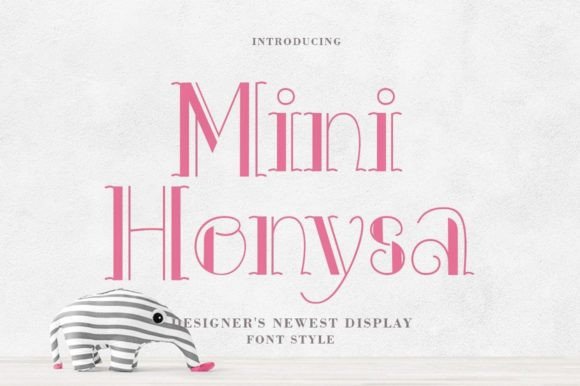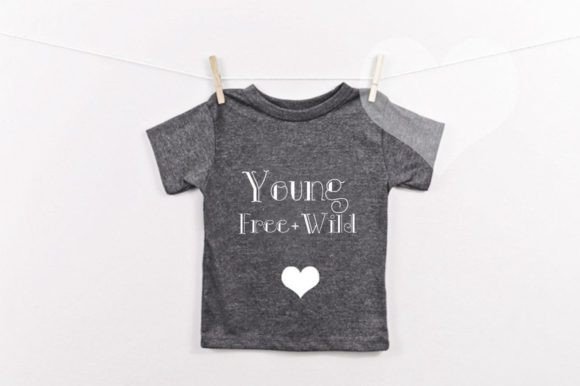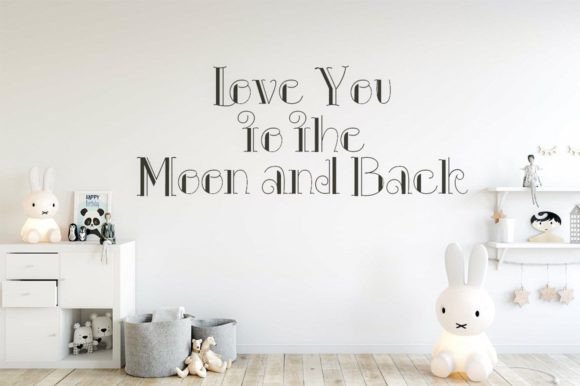
About Mini Honysa Font
Mini Honysa sounds like a modern and versatile font, suitable for a wide range of design applications. Its adaptability makes it a great choice for branding, invitations, stationery, wedding designs, social media posts, advertisements, product packaging, product designs, labels, photography, watermarks, special events, and more.
Fonts with a modern look often bring a contemporary and fresh aesthetic to designs, making them suitable for a variety of projects across different industries. Mini Honysa’s flexibility suggests that it can seamlessly integrate into both digital and print designs, contributing to the overall visual appeal of your creative projects.
Consider incorporating Mini Honysa into your design toolkit for various purposes, exploring its modern characteristics. Whether you’re working on branding materials, social media graphics, or special event invitations, Mini Honysa seems poised to add a touch of modernity to your typography.
Fonts like Mini Honysa can play a crucial role in establishing a cohesive and visually appealing identity for your projects. Enjoy utilizing Mini Honysa in your creative endeavors, and may it bring a modern and stylish vibe to your designs!